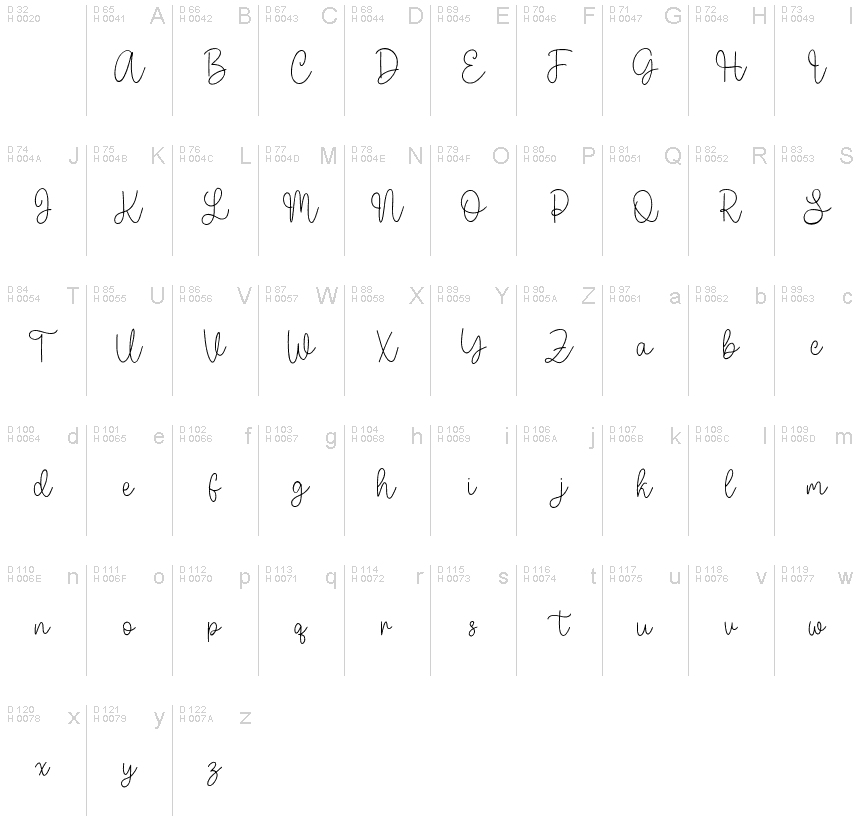
Castilock Free Regular
Castilock, designed by Maulana Creative, is an extra-light, casual cursive script font. Its regular mono-line consist stroke and fun characters, along with ligatures and alternates, give your work a creative edge.
With support for over 100 languages, Castilock is perfect for logo design, social media posts, movie titles, book titles, and even long text letters. It also works great as a secondary text font alongside sans or serif fonts.